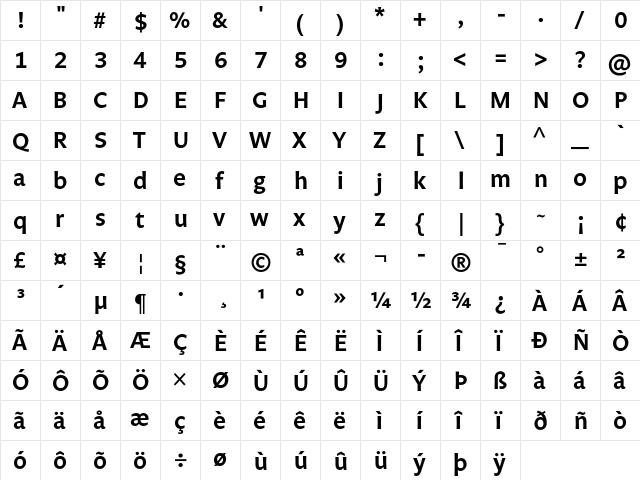
Legato TF Semi Bold
Design Context for Legato Typeface
Legato offers clean, dependable letterforms without strong stylistic allegiance, making it a practical choice for designers who need flexibility. Its bold stroke weight gives it real presence on the page.
Pro Tip: Pair Legato with a font of contrasting weight or personality to build a more expressive typographic hierarchy.